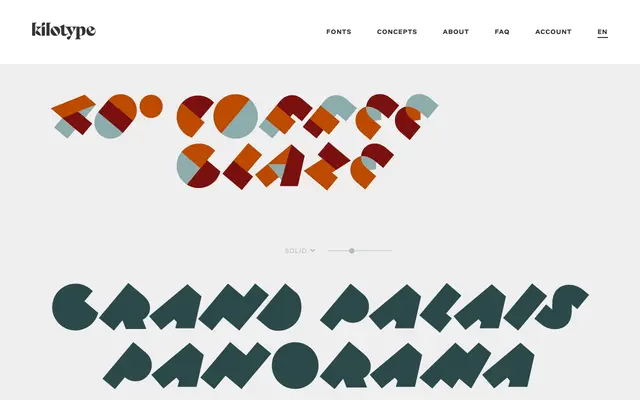
40 Degrees
Kilotype · Selma Losch · 2022
40 Degrees specimen from Kilotype
A geometric display typeface by Selma Losch in which letters are tilted 40 degrees and rendered as iridescent colour mosaics across 11 predefined palettes.
Designed by Selma Losch and released in 2022, the typeface takes a geometric skeleton and rotates each letterform 40 degrees, fragmenting the shapes into coloured mosaic segments. Eleven predefined colour palettes shift the tone from ethereal to vivid, while a monochrome Solid style functions as a fallback in apps without colour-font support. The font uses both CPAL/COLR and SVG tables for broad compatibility and is distributed under Kilotype's Concept Font programme, free for individuals and studios under €100k annual revenue.
A geometric display font whose letterforms are rotated 40 degrees and rendered as multicolour iridescent mosaics; the decorative, colour-font treatment and highly specific visual concept place it firmly in the display category.